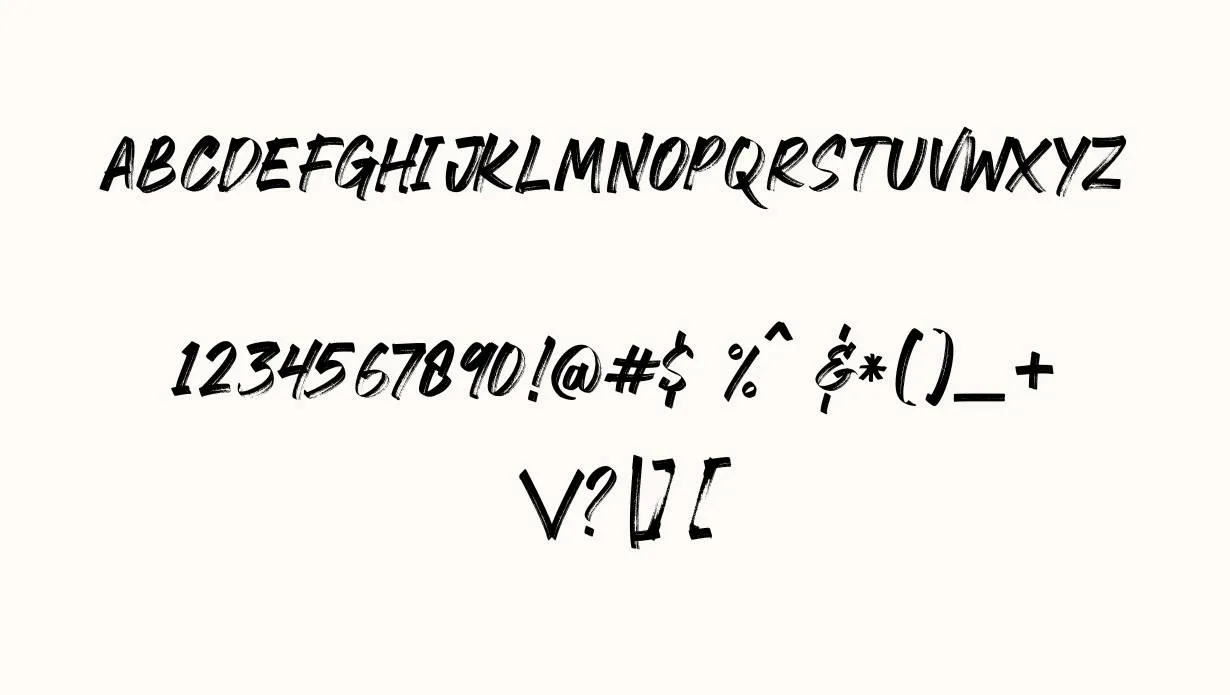
The Crackers Brusher font is favored for its playful and artisanal appearance, often used in creative or artistic designs. It’s commonly applied in design projects requiring a handmade or personalized touch.
The font usually contains a specific set of characters and symbols to cater to creative and playful design needs. The typeface family is highly versatile and accommodating for numerous foreign languages, making it an ideal choice when paired with decorative fonts like blowBrush font.